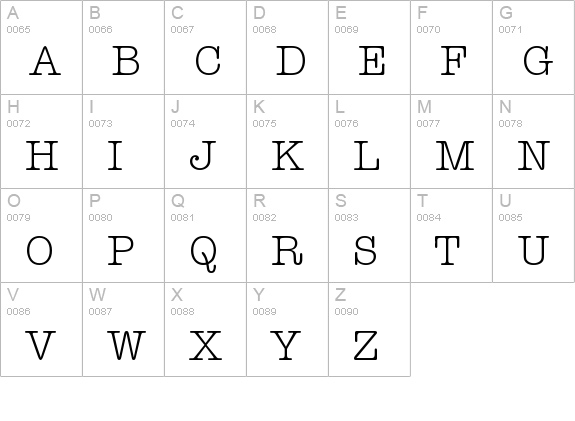
TypewriterSerial-Light-Regular is a refined, elegant variant in the TypewriterSerial typeface family \xE2\x80\x94 well suited to elegant body text, refined sub-headings, and luxury branding.
TypewriterSerial-Light-Regular font is a sophisticated and elegant typeface that brings a touch of nostalgia to any design project. With its clean lines and classic typewriter-inspired aesthetic, this font is perfect for conveying a sense of professionalism and vintage charm. The light weight of this font adds a delicate touch to your text, making it ideal for headings, quotes, and body text alike. Best of all, TypewriterSerial-Light-Regular is available for free download at FontsMarket.com. Whether you're a designer looking to add a unique flair to your work or a writer aiming to evoke a sense of old-world elegance, this font is sure to make a statement. Download TypewriterSerial-Light-Regular today and elevate your designs with a timeless and versatile typeface.